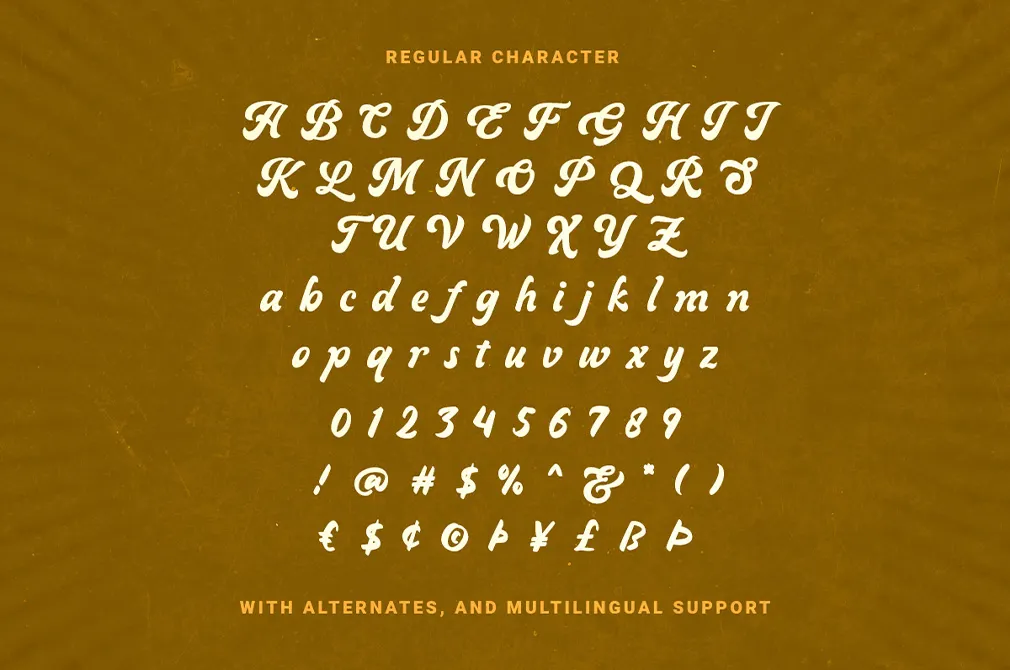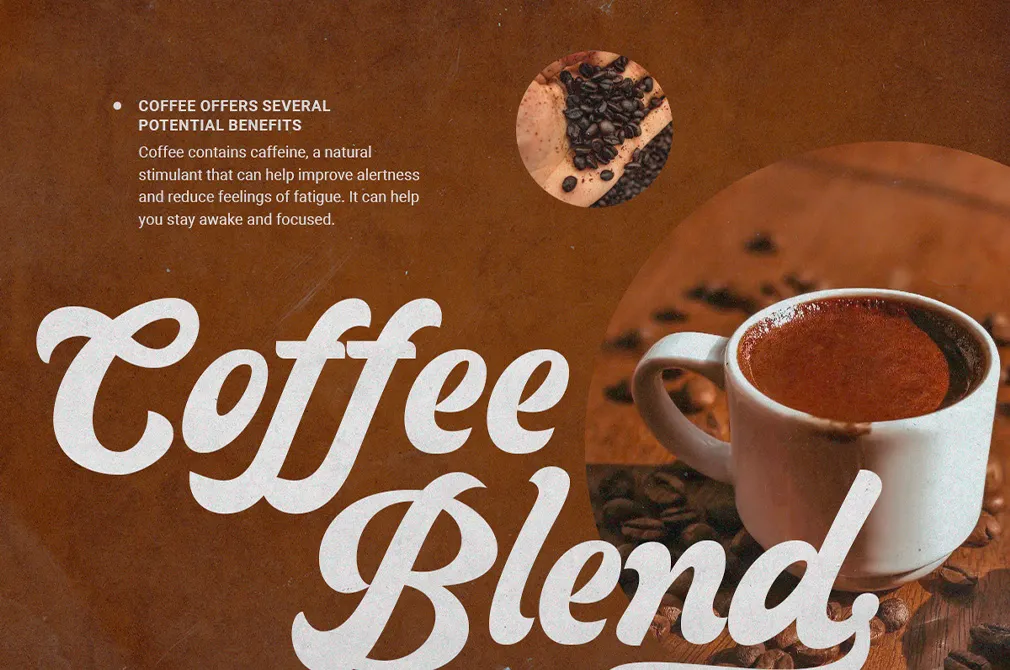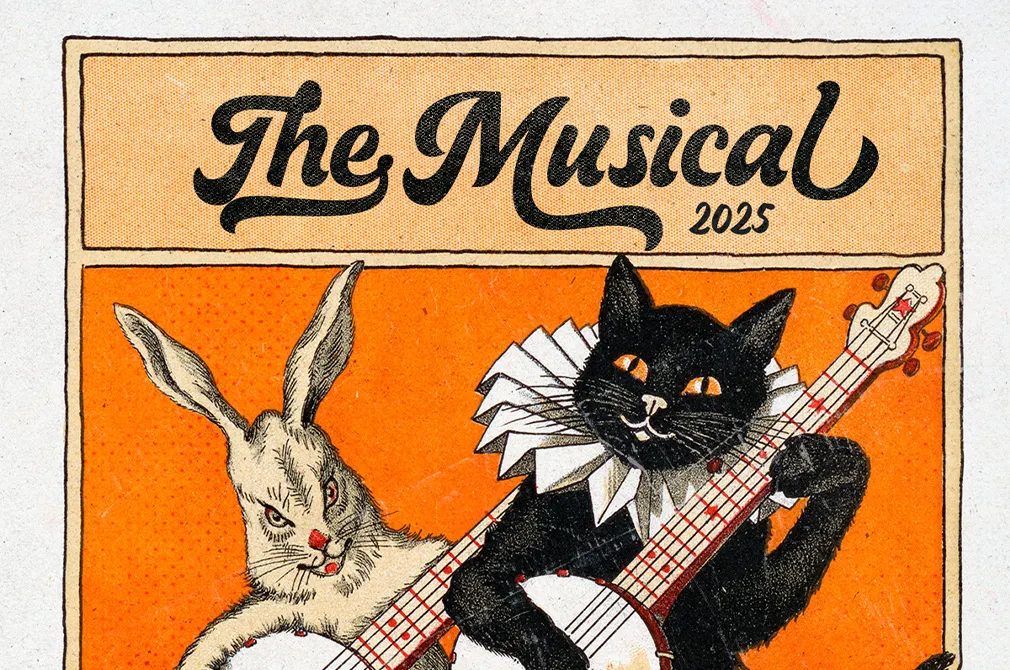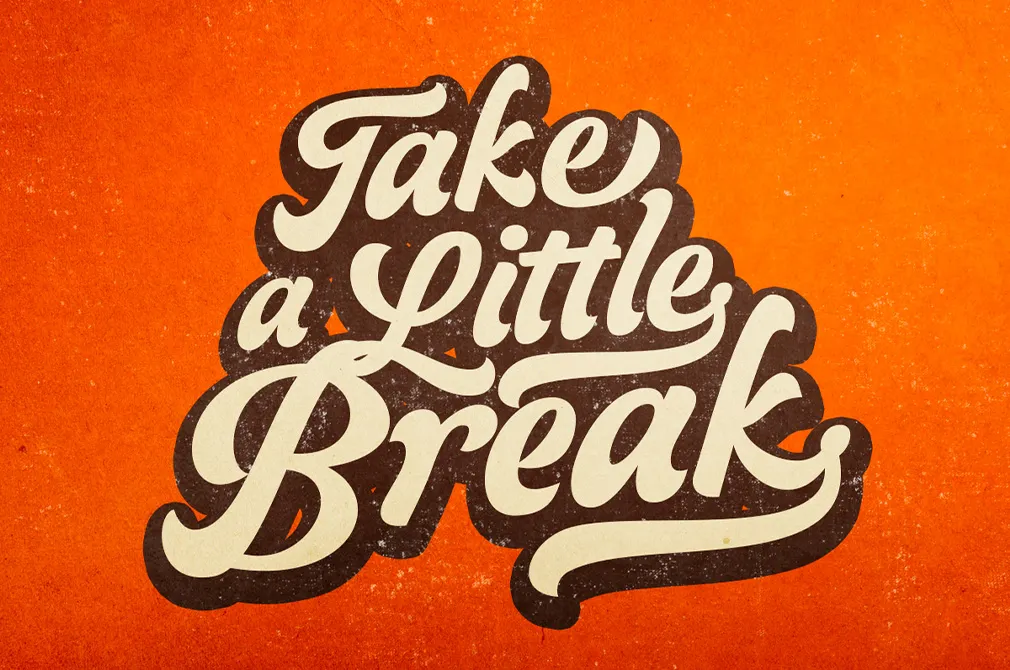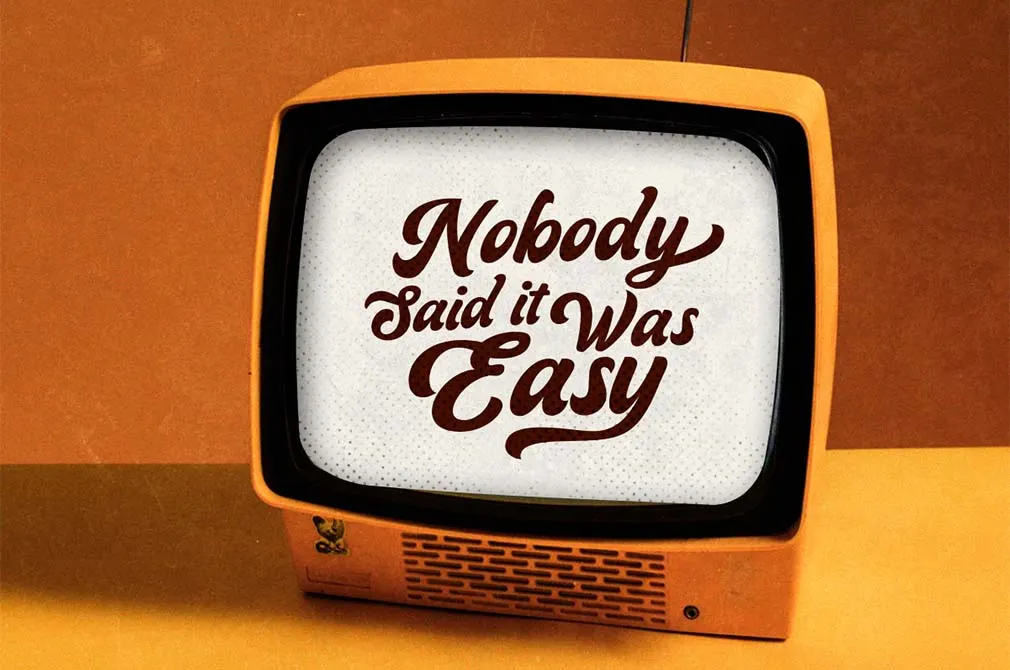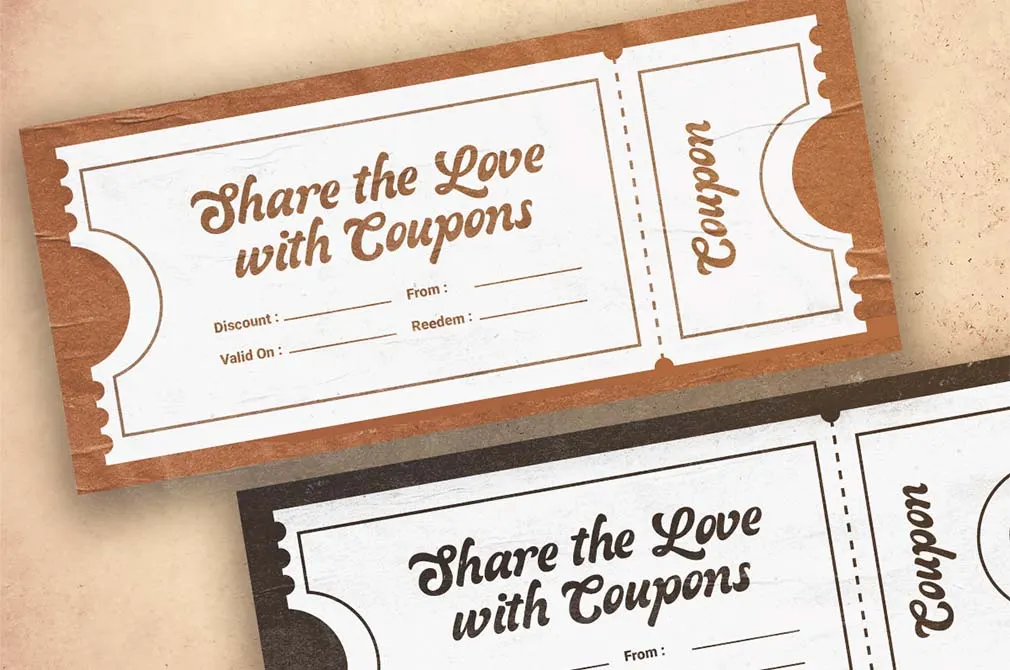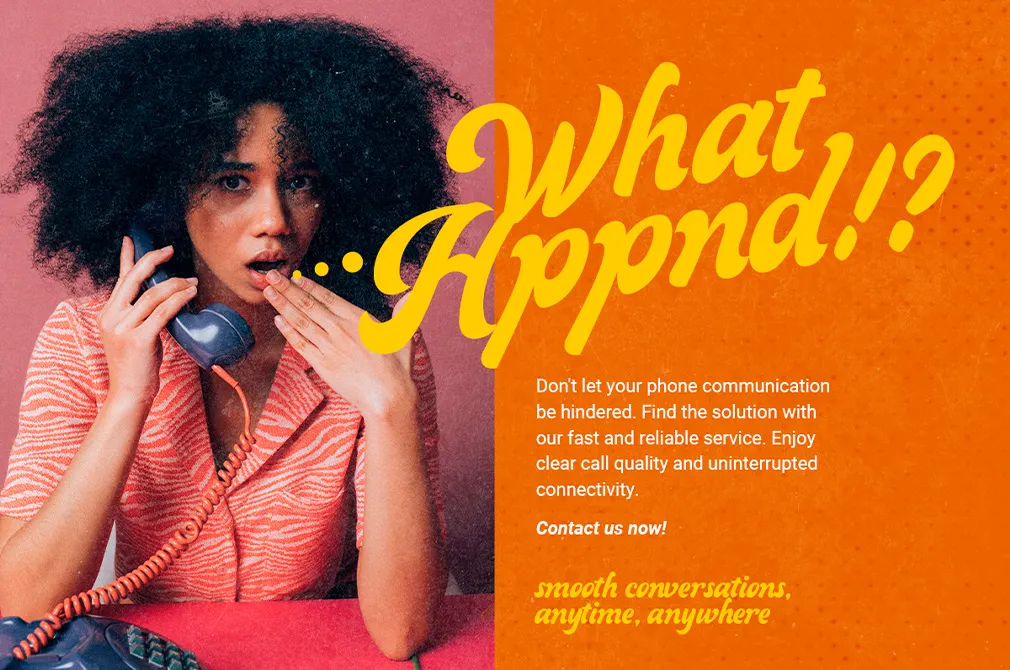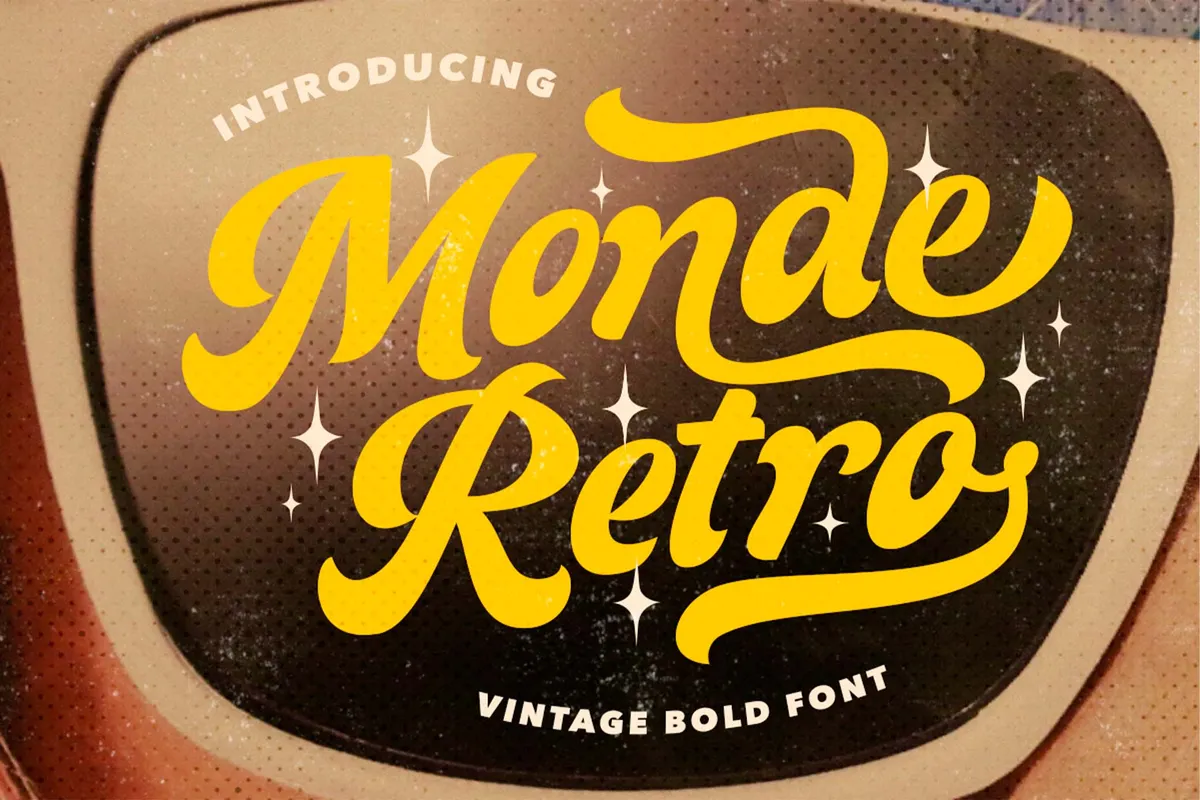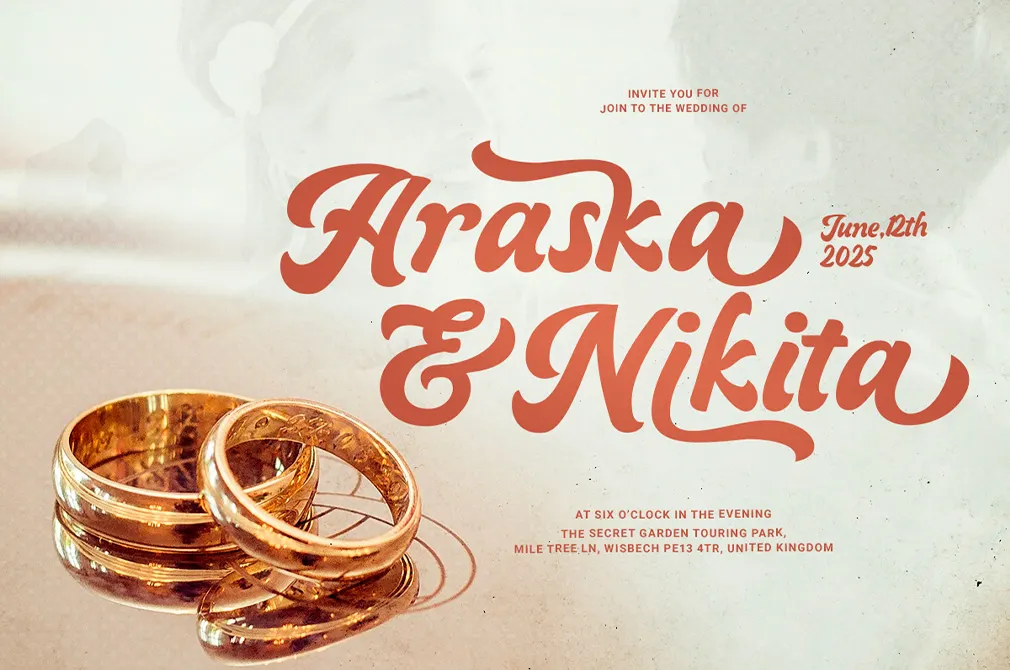
Monde Retro — Vintage Bold Font
Monde Retro font brings the vivid aesthetic of the American 50s. It has absorbed the image of picture-perfect family and teen romances from the backseat of a Buick.
Make us choose a font for all the TV shows and Vynil of the 50s, and we'd name Monde Retro. It's a precise embodiment of retro typography taken from movie posters — those starring Clark Gable, James Dean, and Elizabeth Taylor. Monde Retro features a complete set of glyphs plus multilingual support, enabling you to share any message in almost any language.